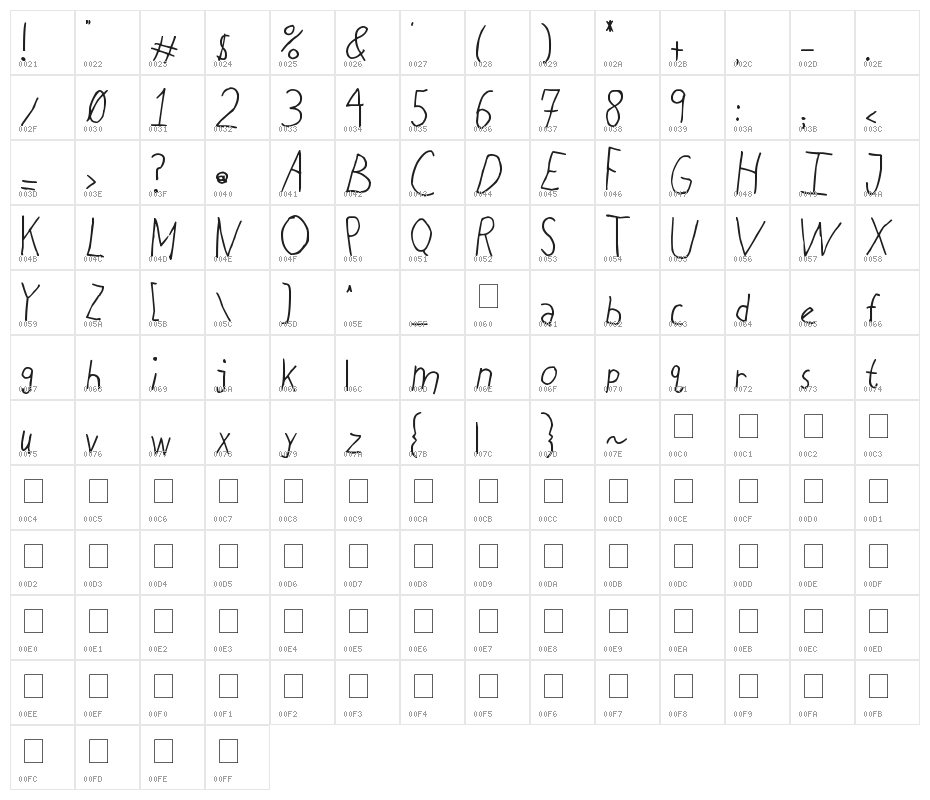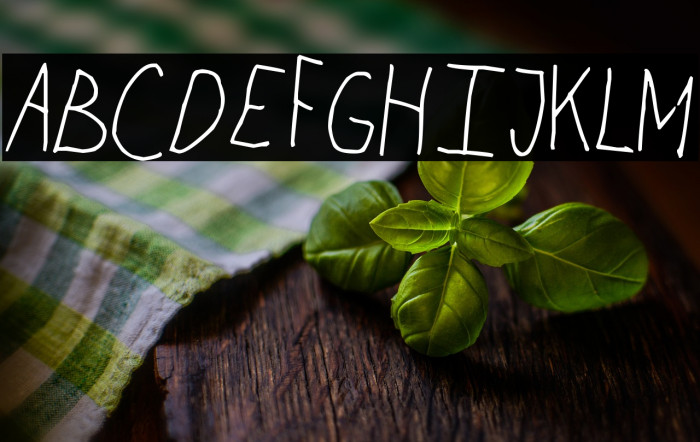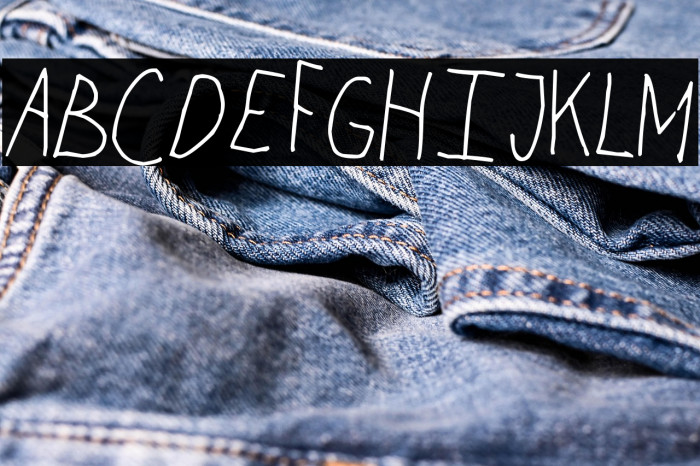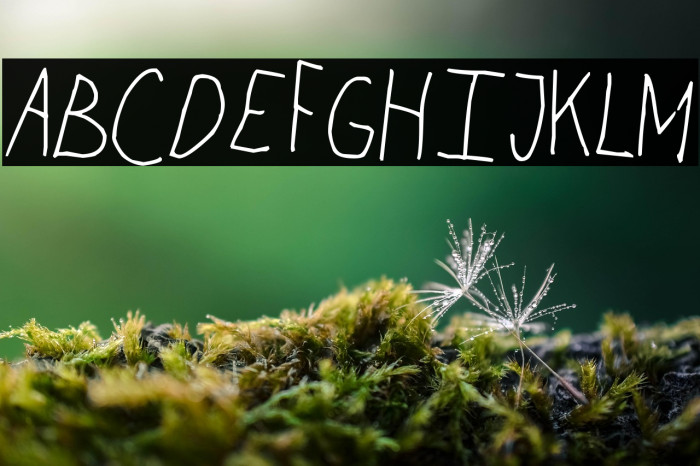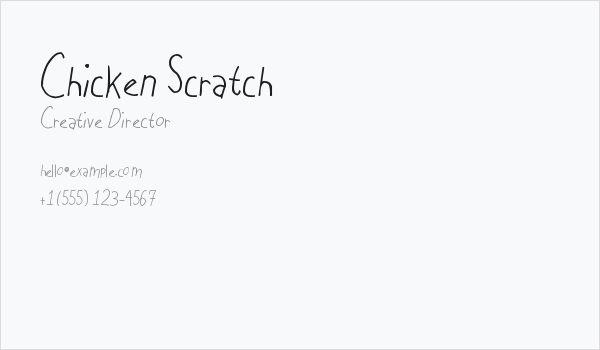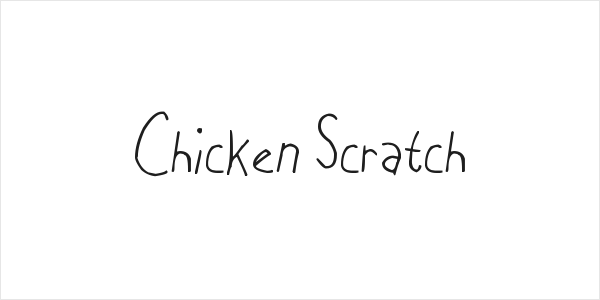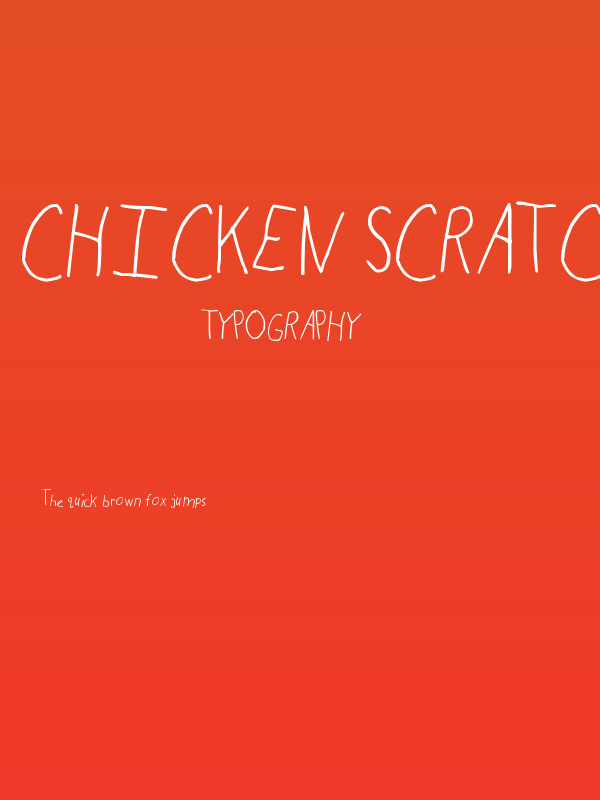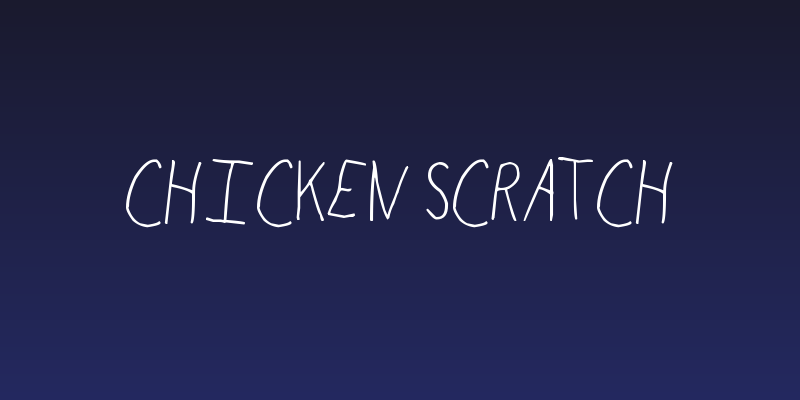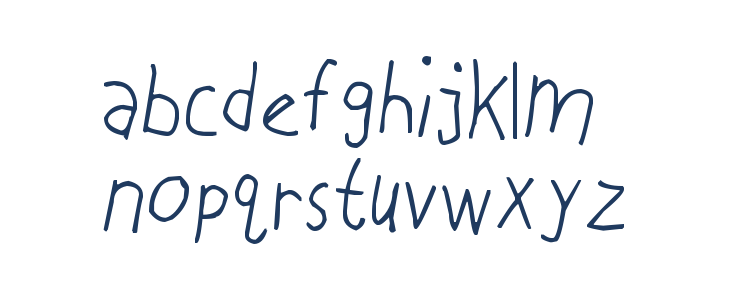
Chicken Scratch Font
Chicken Scratch Description
This font exudes a playful and informal style, reminiscent of handwritten notes or casual doodles. The characters are uneven and slightly tilted, giving them a whimsical and spontaneous appearance. The strokes vary in thickness, adding to the hand-drawn feel. The uppercase letters are tall and narrow, while the lowercase letters maintain a consistent height, contributing to the font's quirky charm. Numbers and special characters follow the same informal style, making this font suitable for creative and fun projects.
| Proposed Projects | Ideal for children's books, greeting cards, casual invitations, and creative posters. |